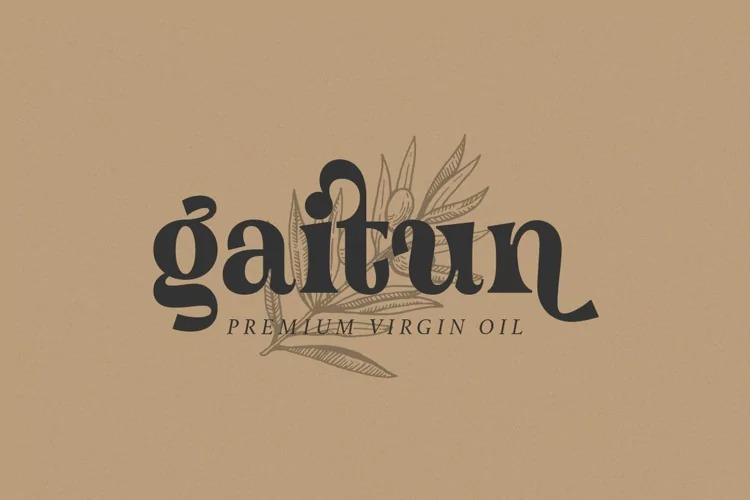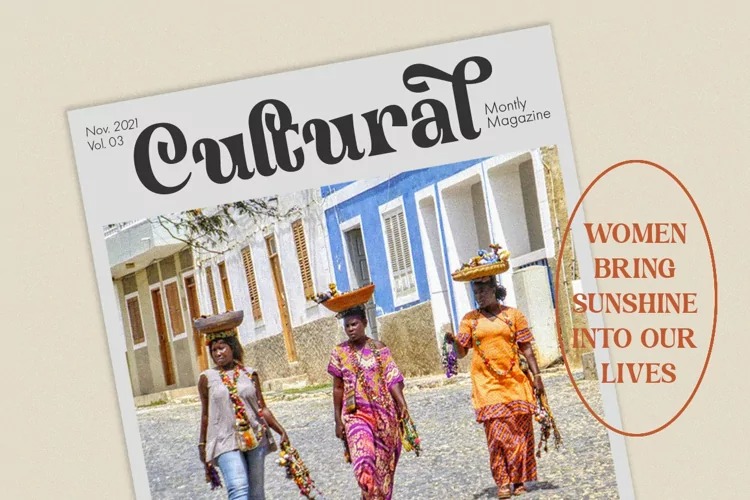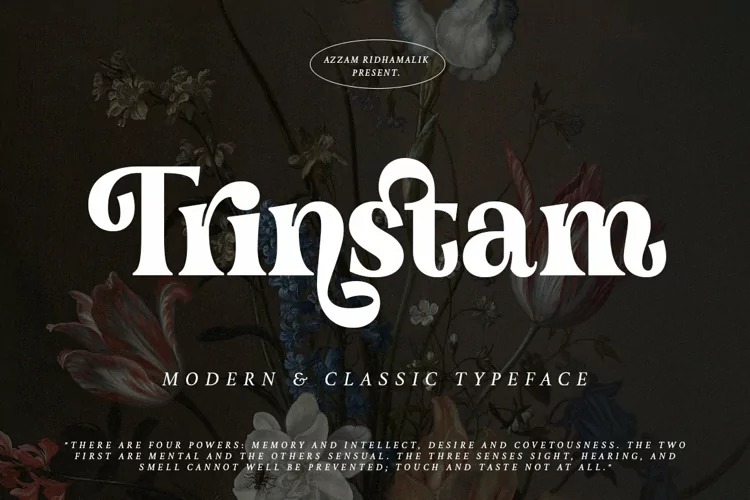
Trinstam Font
Trinstam Serif Font
This is a thick lettered and chic serif typeface from designer Dunyawi, featuring the perfect amount of trendiness. It’s a very versatile font that works great in large and small sizes. Perfect for editorial projects, Logo design, Clothing Branding, product packaging, magazine headers, or simply as a stylish text overlay to any background image.
This font is PUA encoded and has more than 120 unique alternative glyphs and ligatures that will give your project an unique classic look.